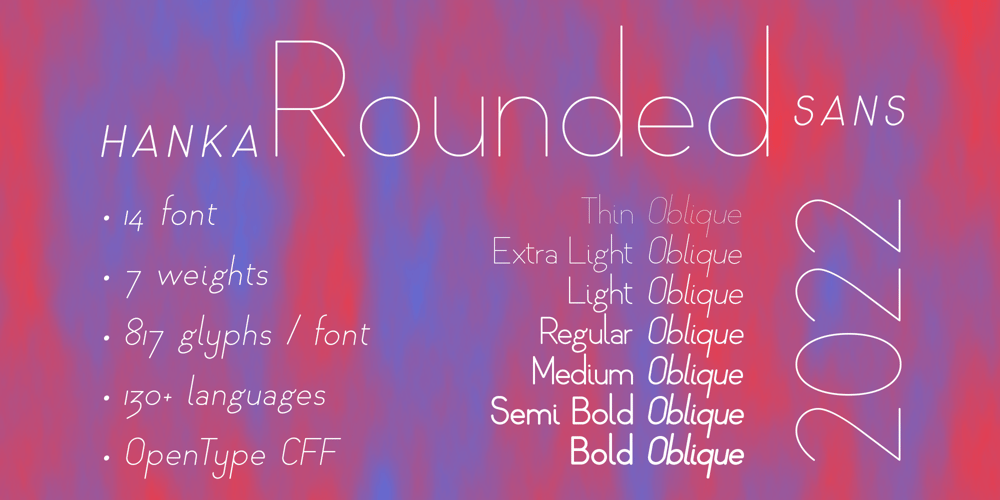
Hanka Rounded Sans Font Family was designed by Tom Károly and published by Tom Károly. Hanka Rounded Sans contains 14 styles and family package options. This font is a very new typeface from 2022. It is based on biro pen writings.The name Hanka is the nick of the designer’s daughter. The family has seven weights (straight and oblique), which are OpenType sets with PostScript curves.Features include ligatures (classical and discretionary), number formats (tabular/proportional, lining/old style), fractions, old-style formats, stylistic alternates, and kerning. May you be happy with this set when creating advertisements or artistic content.